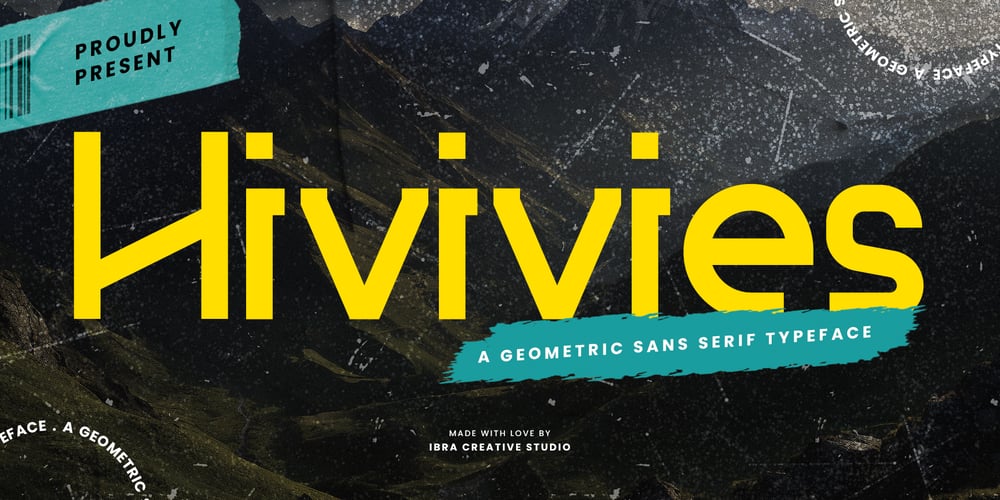
Hivives
Hivives font
Hivives Font Family was designed by Roisatul Azizah and published by IbraCreative. Hivives contains 1 styles and family package options. Hivives – A Geometric Sans Serif TypefaceHivives is a contemporary geometric sans serif typeface that embodies a harmonious balance between precision and warmth. With its clean, straight lines and minimalist design, this typeface exudes a modern aesthetic while maintaining a sense of approachability. The geometric construction of Hivivies lends it a distinct and timeless quality, making it versatile for a wide range of design applications. The letterforms are characterized by consistent stroke widths, sharp angles, and well-defined geometric shapes, resulting in a visually cohesive and sophisticated appearance. Hivives stands out as a stylish choice for branding, editorial design, and digital interfaces, where its crisp and clear lettering contributes to a polished and contemporary visual identity.Hivives is perfect for branding projects, logo, wedding designs, social media posts, advertisements, product packaging, product designs, label, photography, watermark, invitation, stationery, game, fashion and any projects.Fonts include multilingual support for; Afrikaans, Albanian, Czech, Danish, Dutch, English, Estonian, Finnish, French, German, Hungarian, Italian, Latvian, Lithuanian, Norwegian, Polish, Portuguese, Slovak, Slovenian, Spanish, Swedish.